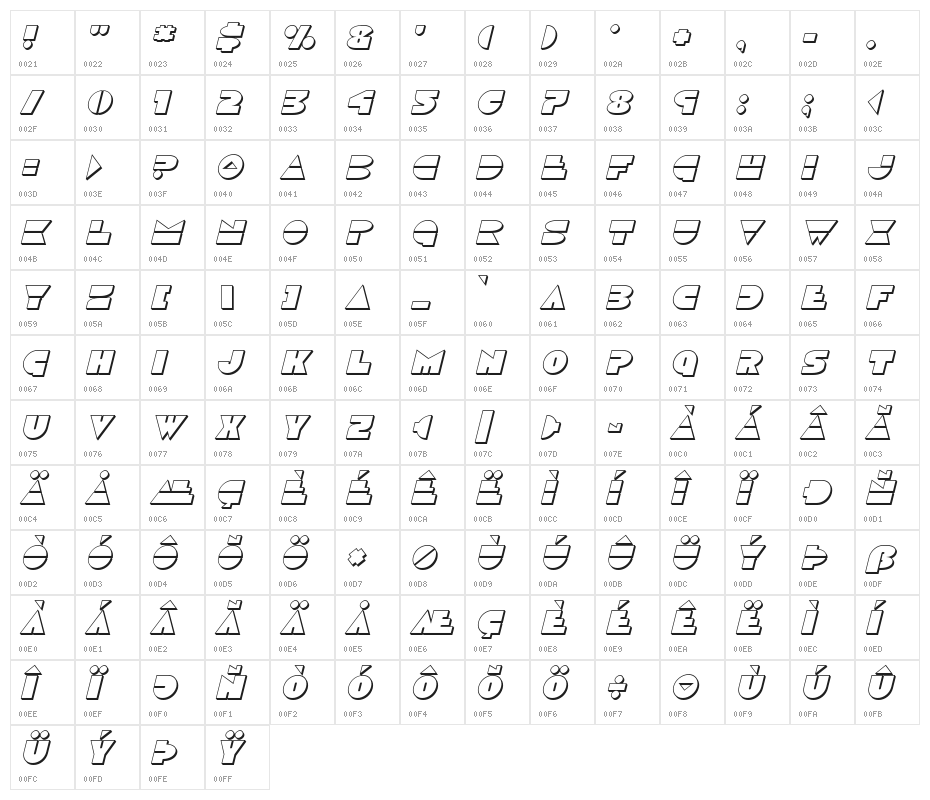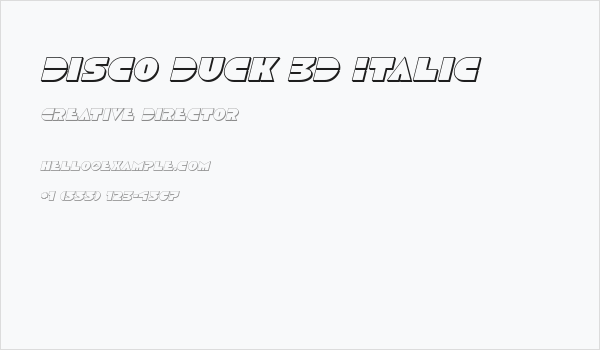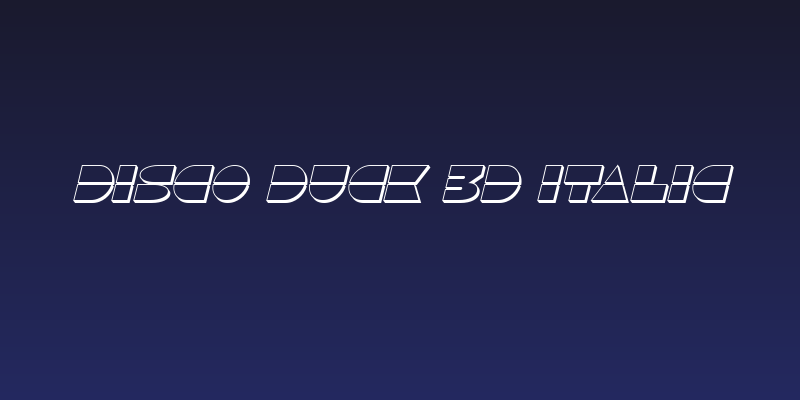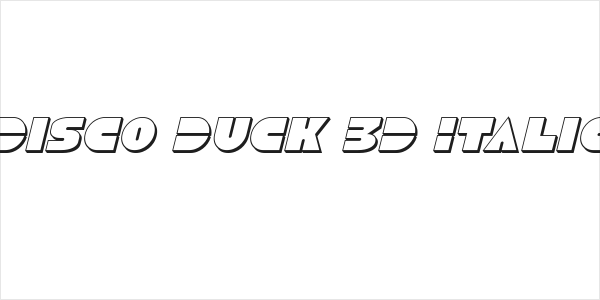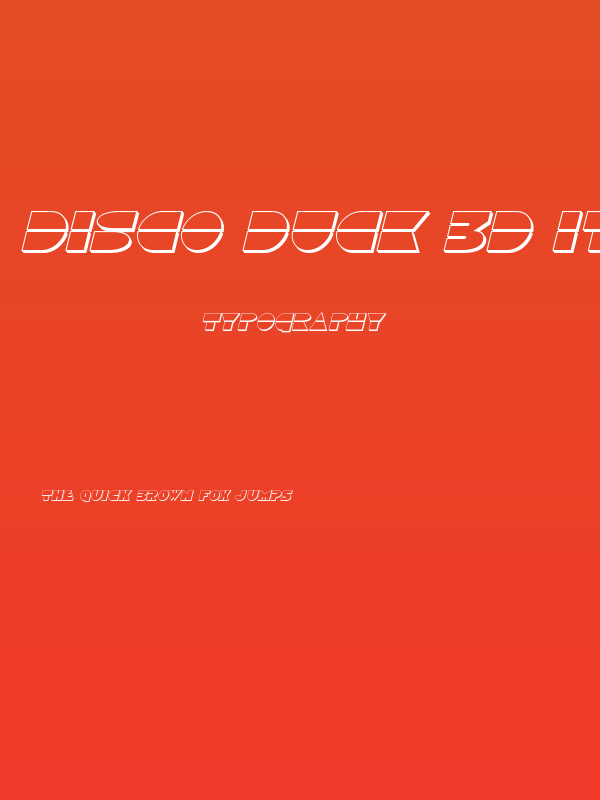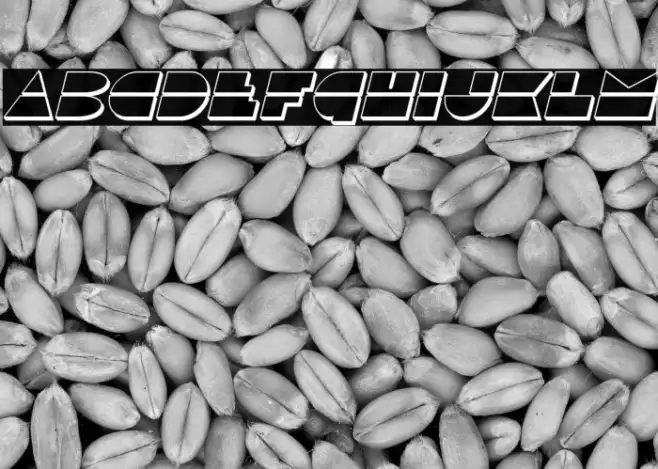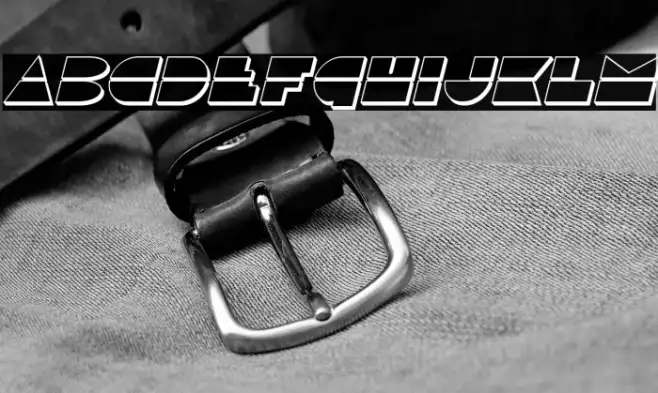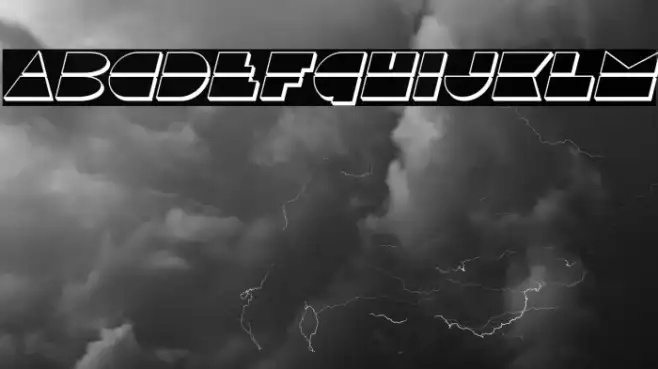
Disco Duck 3D Italic Font
Disco Duck 3D Italic Description
This font features a bold, geometric design with a distinct 3D effect, giving it a dynamic and playful appearance. The characters are constructed with sharp angles and clean lines, creating a sense of movement and energy. The italic style enhances the forward-leaning motion, making it ideal for eye-catching designs. The uppercase and lowercase letters maintain a consistent style, while the numbers and special characters complement the overall aesthetic. The font's unique structure makes it stand out, perfect for projects that require a modern and vibrant touch.
| Proposed Projects | Ideal for posters, logos, album covers, and any design requiring a modern, energetic look. |